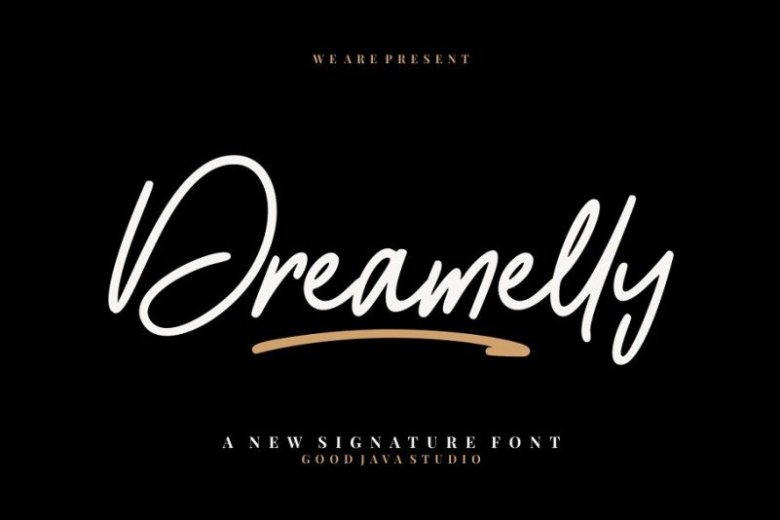
Dreamelly Signature Font
Dreamelly Font – A new fresh handmade signature font. This is modern feminine font, every single letters have been carefully crafted to make your text looks beautiful. This font will perfect for many different project. It’s designed and shared by Good Java Studio. It’s born from handwritting style fonts. Versatile for design poster, logo, branding, label, quote, headline profil, banner, t-shirt design, packaging, magazine, brochure, and many more your amazing work with this fonts.